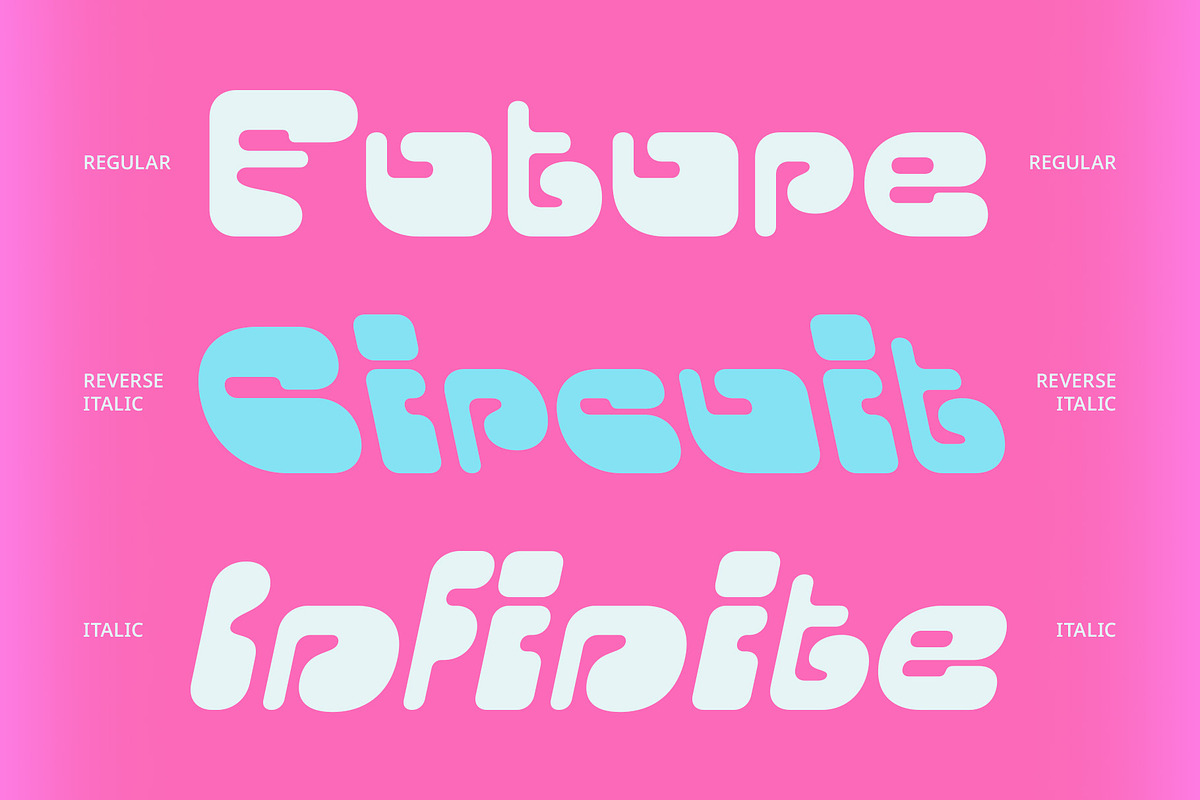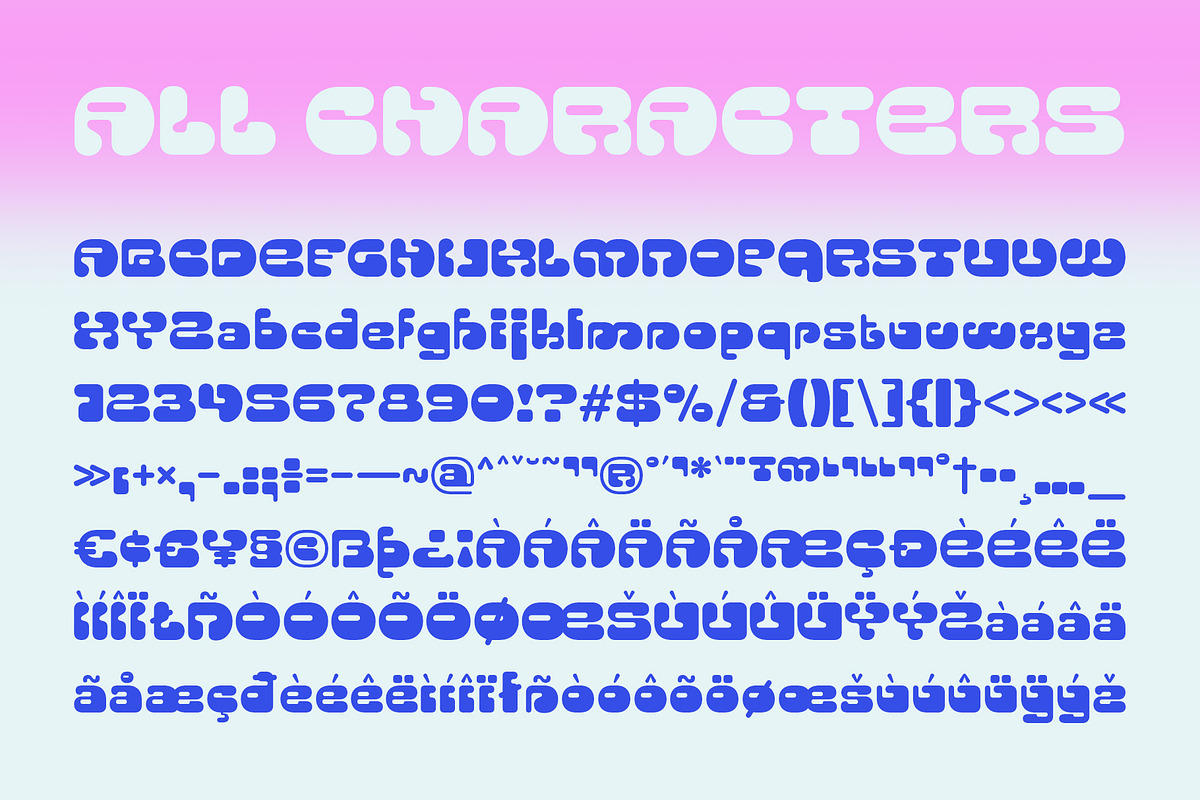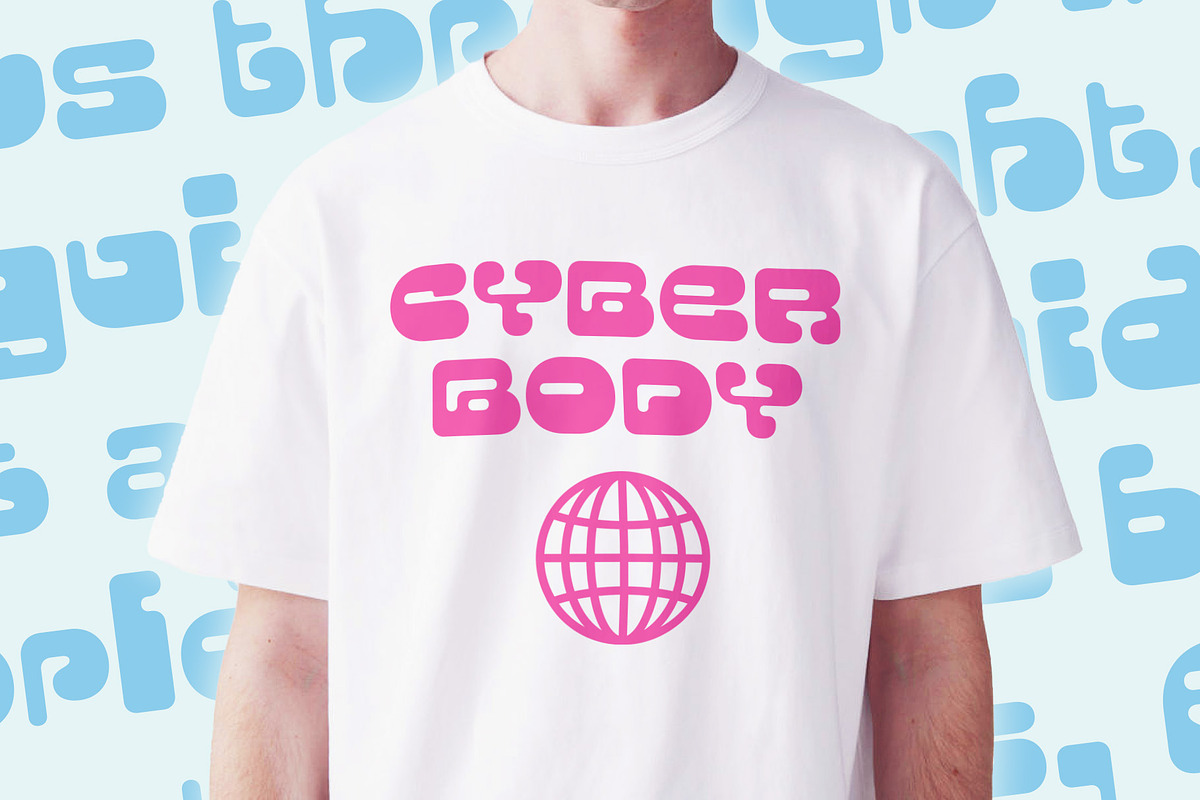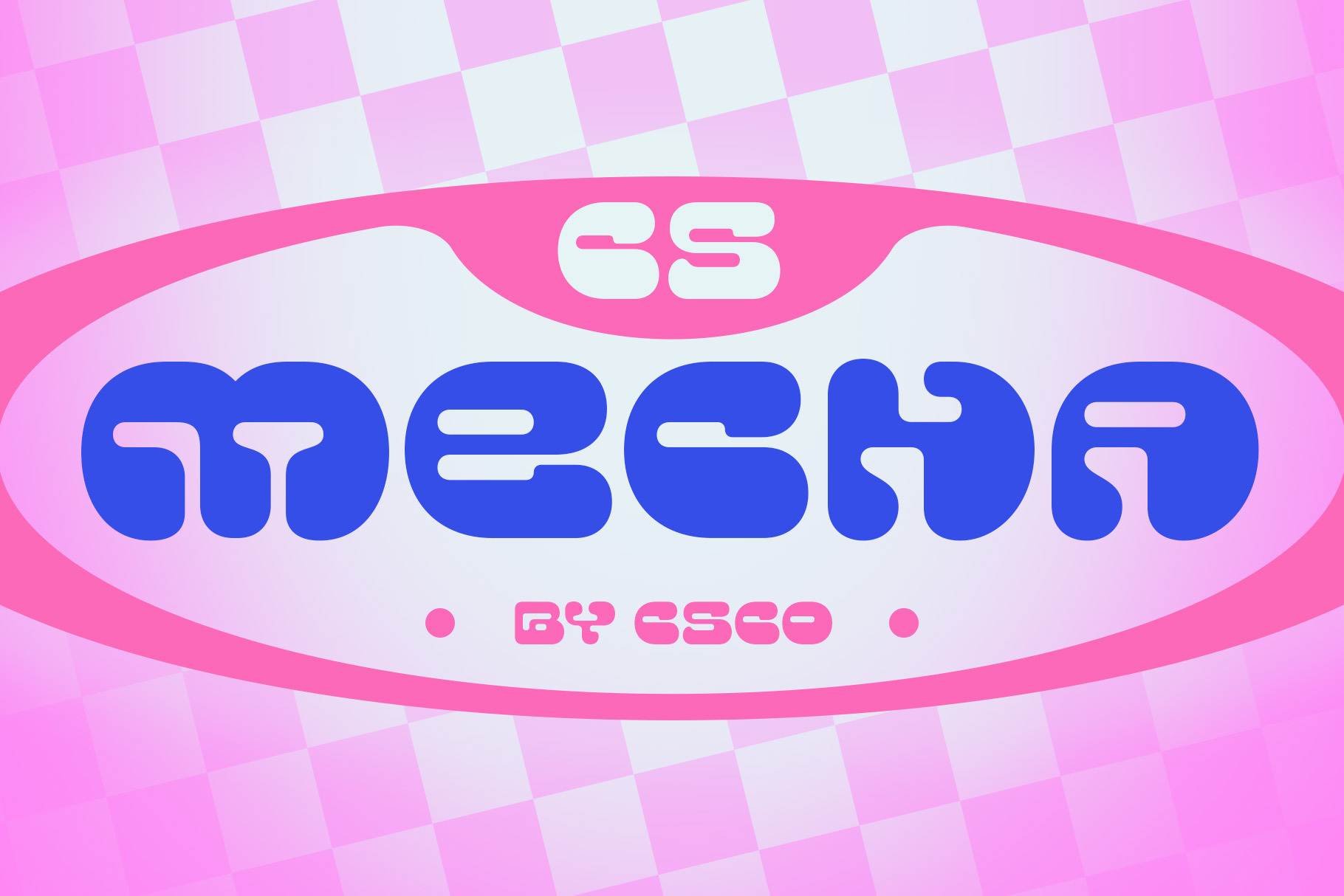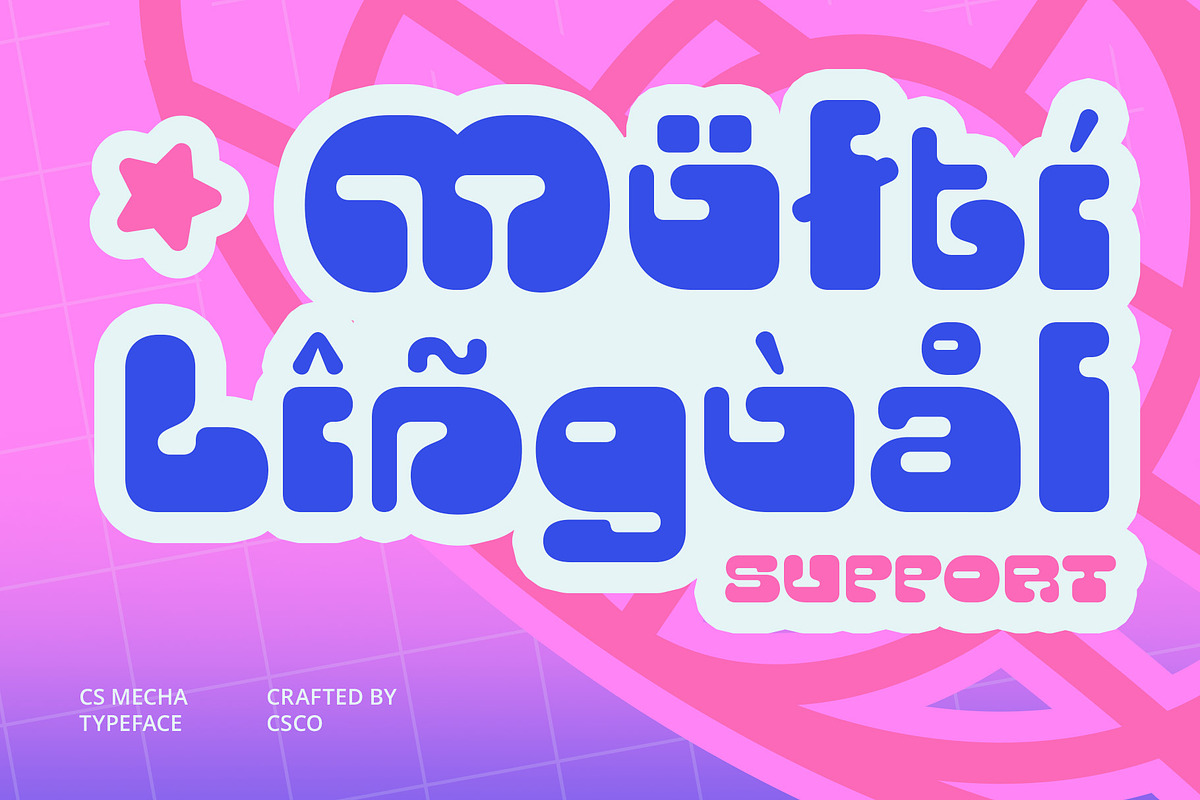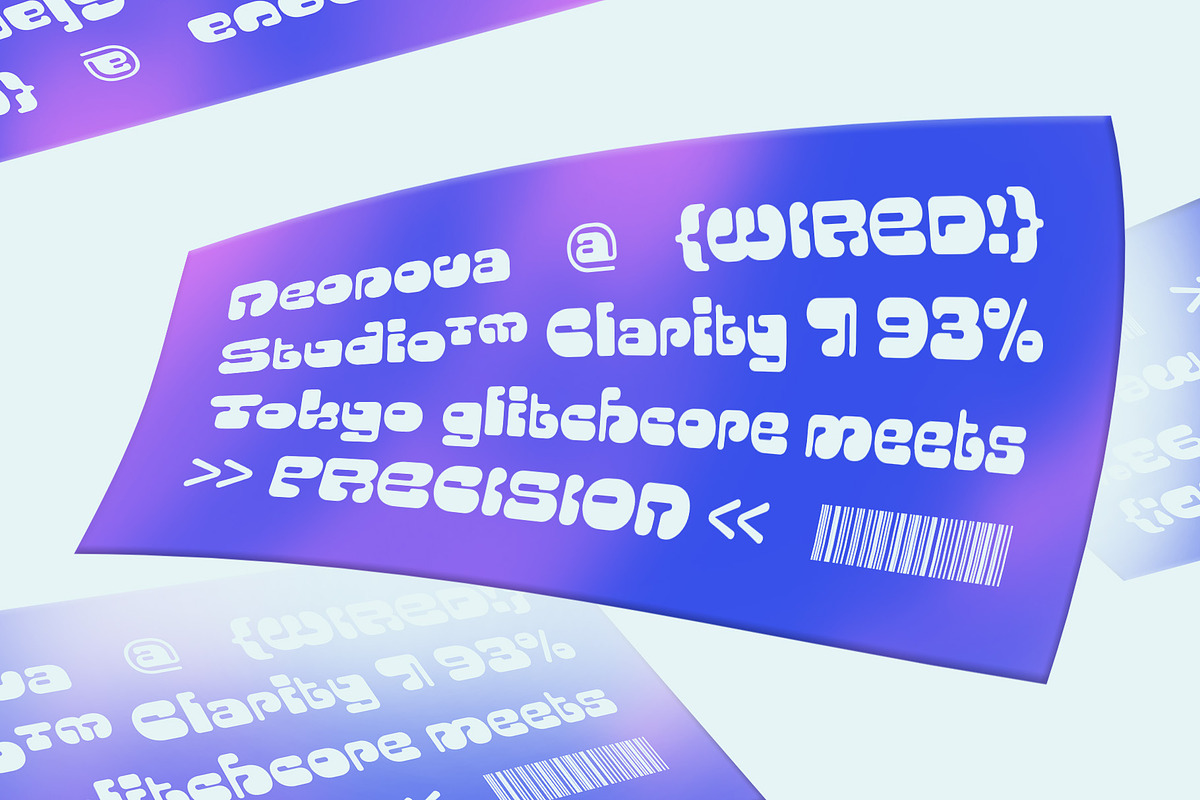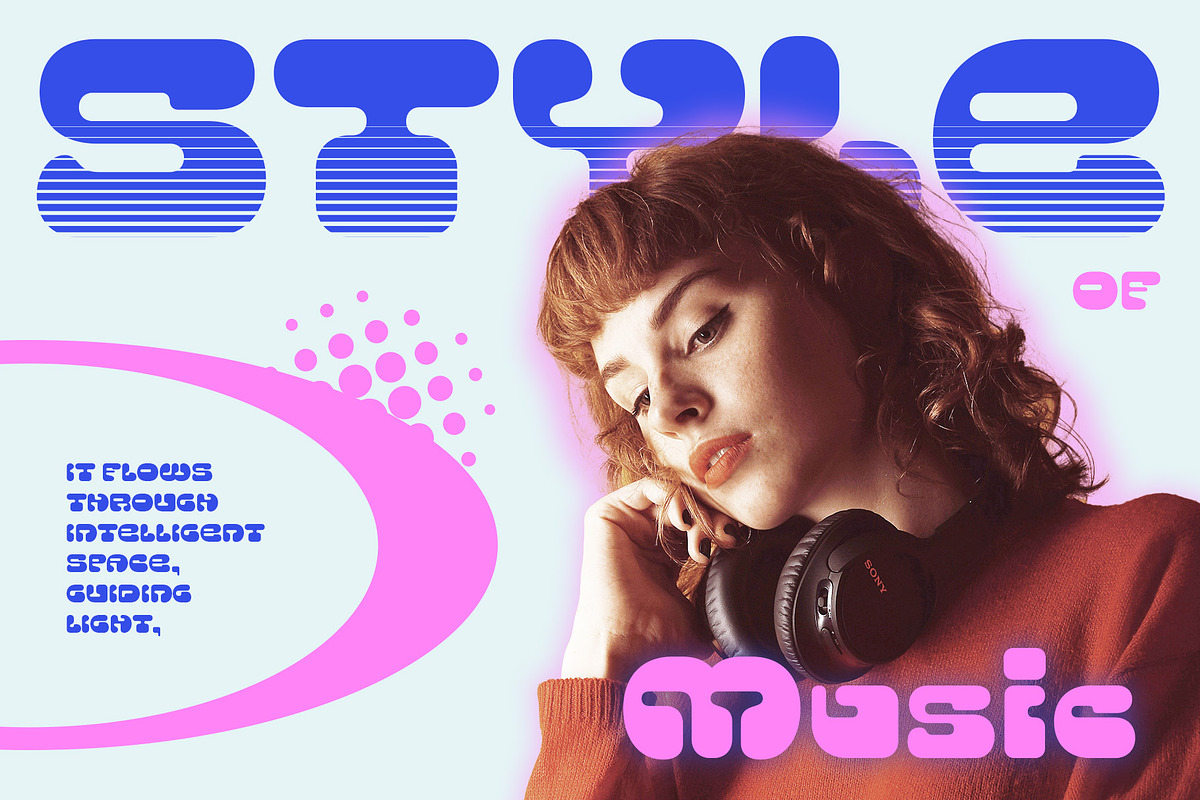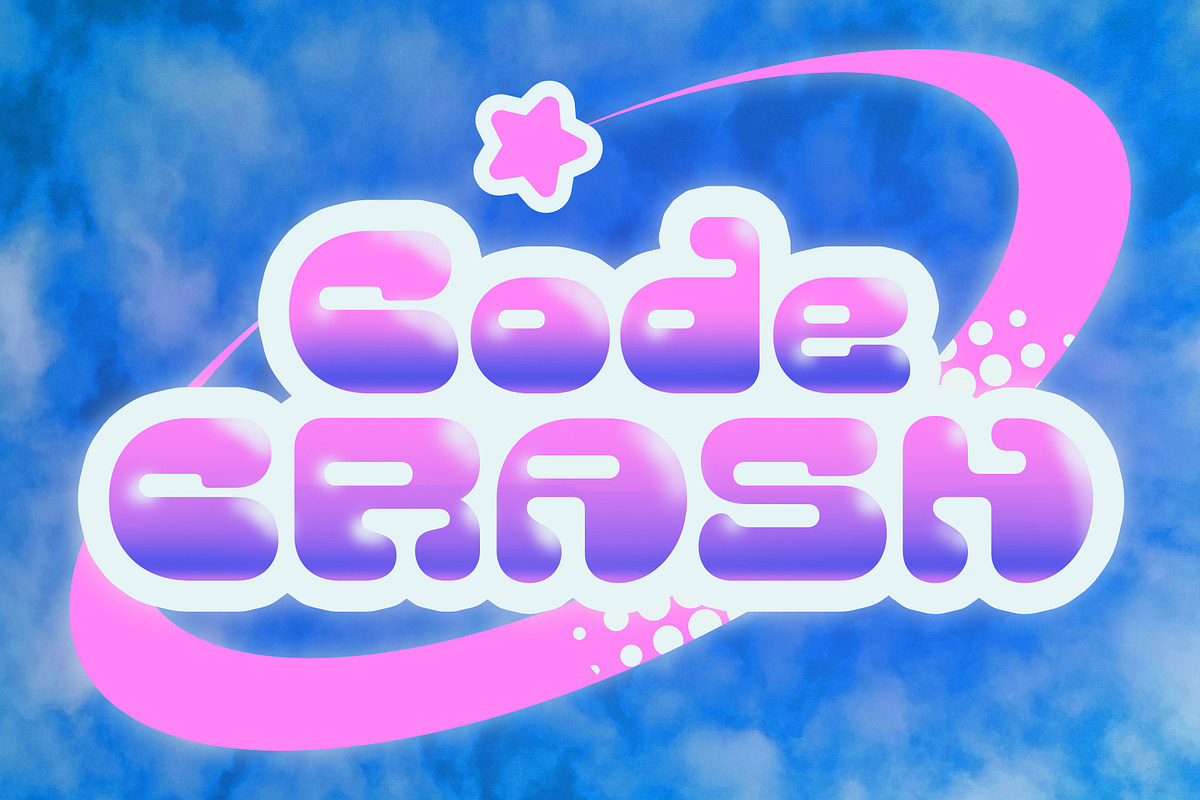
CS Mecha – Y2K Font
CS Mecha – Y2K Font That Radiates Retro-Futuristic Energy
Bold, Bubble Shapes Inspired by the Y2K Era CS Mecha is a bold display font inspired by the vibrant and futuristic visuals of the early 2000s. Its rounded, oversized, and playful letterforms reflect the iconic Y2K aesthetic, filled with energy, optimism, and fun. The exaggerated curves and soft edges give it a distinctive bubble-like style that commands attention in any design.
A Retro-Funky Vibe That Pops The font blends retro charm with a funky attitude, making it perfect for designs that channel nostalgia and creativity. Its visual tone is both joyful and experimental, echoing the spirited world of early digital graphics, pop culture, and fashion from the new millennium.
Perfect for Eye-Catching, Creative Projects CS Mecha is ideal for a wide range of expressive design applications—music posters, digital artwork, apparel graphics, fashion campaigns, or bold branding. Whether you’re creating a statement piece or designing for youth-oriented media, this font delivers a look that’s playful, stylish, and packed with character.
Celebrate Nostalgia with a Futuristic Edge With its Y2K inspiration and funky visual rhythm, CS Mecha taps into the ongoing trend of reimagining early-2000s culture. It’s a bold, fun, and nostalgic typographic choice that bridges the past and the future for designs that want to stand out and be remembered.